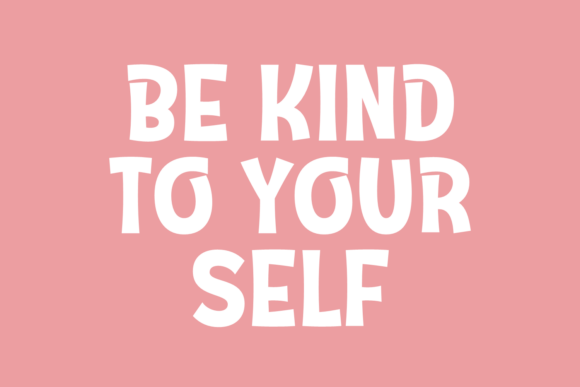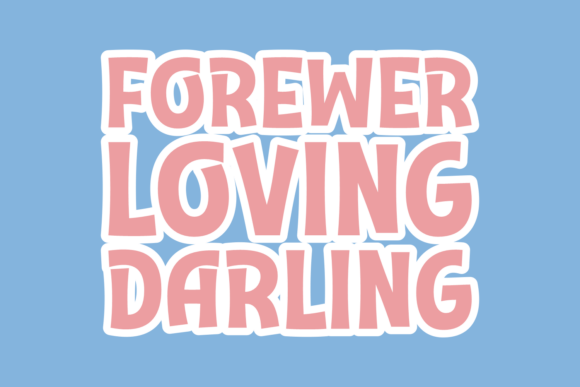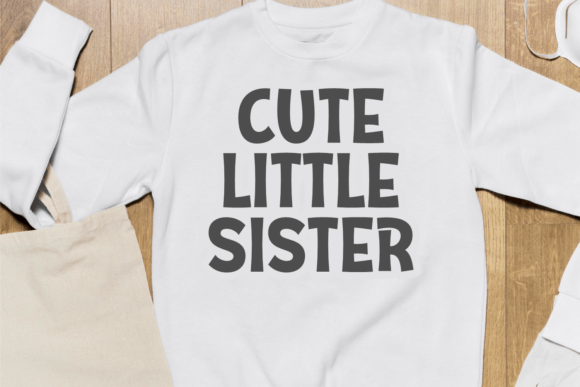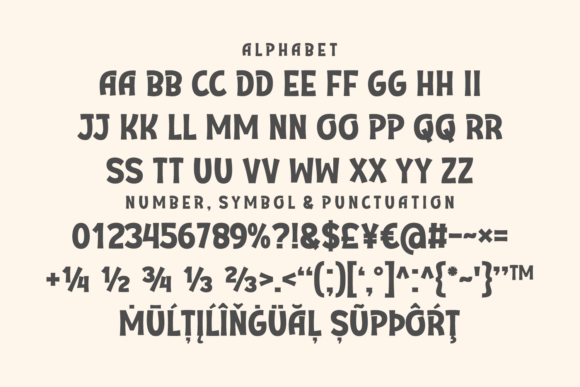
Introducing Grateful Lovers Font: The Ultimate Display Typeface for Adding a Euphoric Touch
Imbued with vibrant energy and spirited charm, Grateful Lovers font is a delightful display typeface designed to effortlessly infuse a euphoric touch of personality into your projects. This unique font is perfect for designers and crafters looking to add a dash of playfulness and modernity to their creations.
A Jovial and Modern Vibe
Mirroring a jovial and modern vibe, the Grateful Lovers edition boasts chunky, rounded characters giving it an irresistible allure that resonates with a playful, youthful essence. The font’s distinctive design makes it an excellent choice for a wide range of applications, from children’s toy packaging to fashion branding and social media graphics.
Endless Possibilities
With Grateful Lovers font, the possibilities are endless. Use it to:
- Breath life into children’s toy packaging with a playful and eye-catching title
- Add a dash of audacious allure to fashion branding and make your designs stand out
- Empower social media graphics with a distinctive edge and capture your audience’s attention
- Craft striking titles for a trendy blog and add a touch of modernity
- Design lively kids’ apparel with a font that’s both fun and bold
Customization Options
Enrich the Grateful Lovers typeface’s persona by incorporating vivacious pink gradients or bold outlines, stressing its exuberant, sticker-like aesthetic. This makes it an adored choice for:
- Nursery decoration designs that require a playful and whimsical touch
- Birthday invitation designs that need a dash of fun and excitement
Balancing Cutesy Charm with Bold Visibility
Grateful Lovers font balances cutesy charm with bold visibility perfectly, making it an excellent choice for designers and crafters who want to create eye-catching designs. The font’s chunky, rounded characters are easy to read, even at smaller sizes, making it perfect for use in a variety of applications.
- Unique and playful design
- Chunky, rounded characters
- Jovial and modern vibe
- Perfect for display text and titles
- Easily customizable with gradients and outlines
- Suitable for a wide range of applications, from children’s designs to fashion branding
In conclusion, Grateful Lovers font is a delightful display typeface that is sure to add a euphoric touch of personality to your projects. With its unique design, customization options, and bold visibility, it’s perfect for designers and crafters looking to create eye-catching designs that resonate with a playful, youthful essence. Try Grateful Lovers font today and take your designs to the next level!